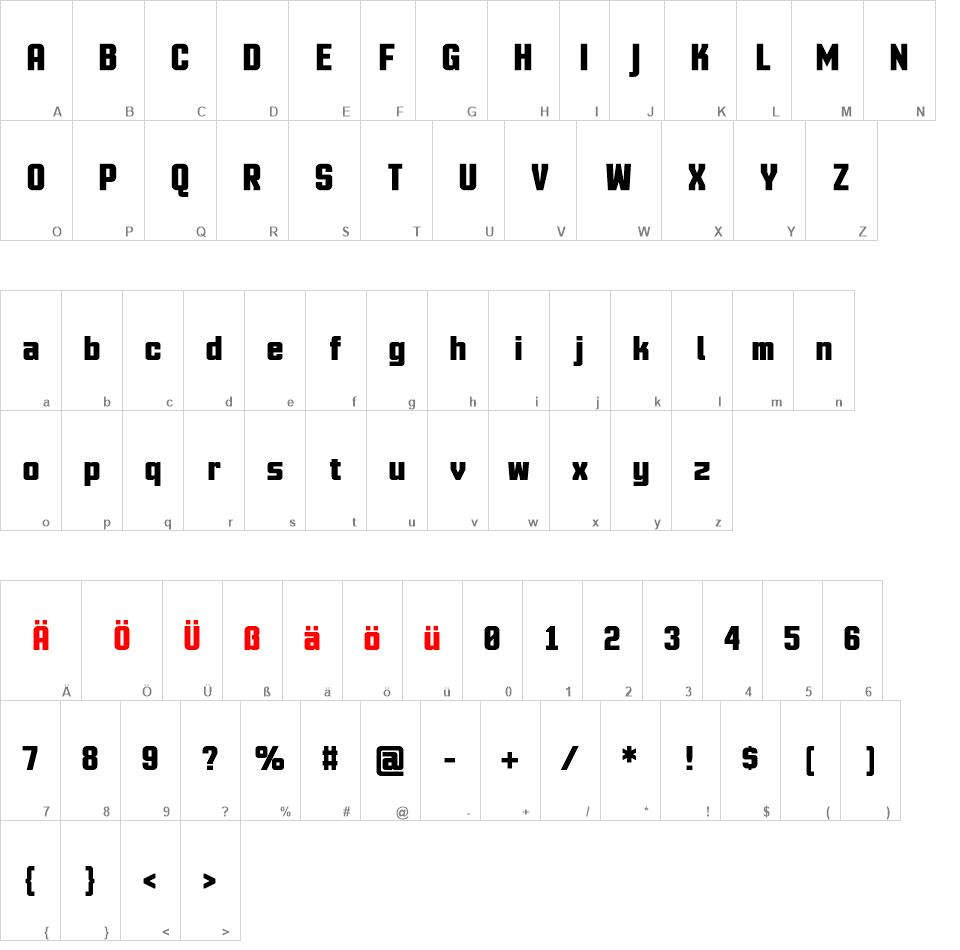
Motion Control Neue
Motion Control Neue font
Motion Control Neue
This is an improvement on my own popular font Motion Control (Thanks for the support!). Some letterforms are fixed to make it look better. While the Lite version does not contain the other fixes, the paid version (Available for $3 on Creative Market) contains extended language support, OpenType alternates, and three pre-obliqued weights in 5° increments.